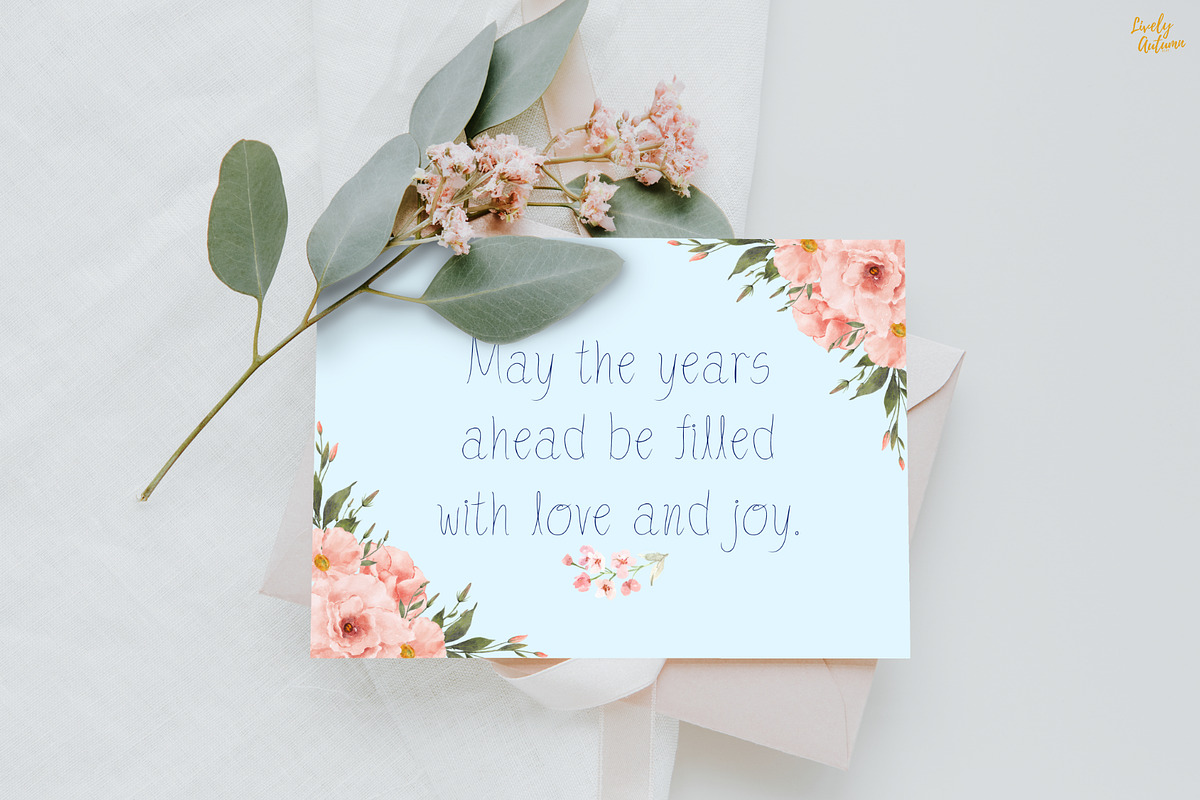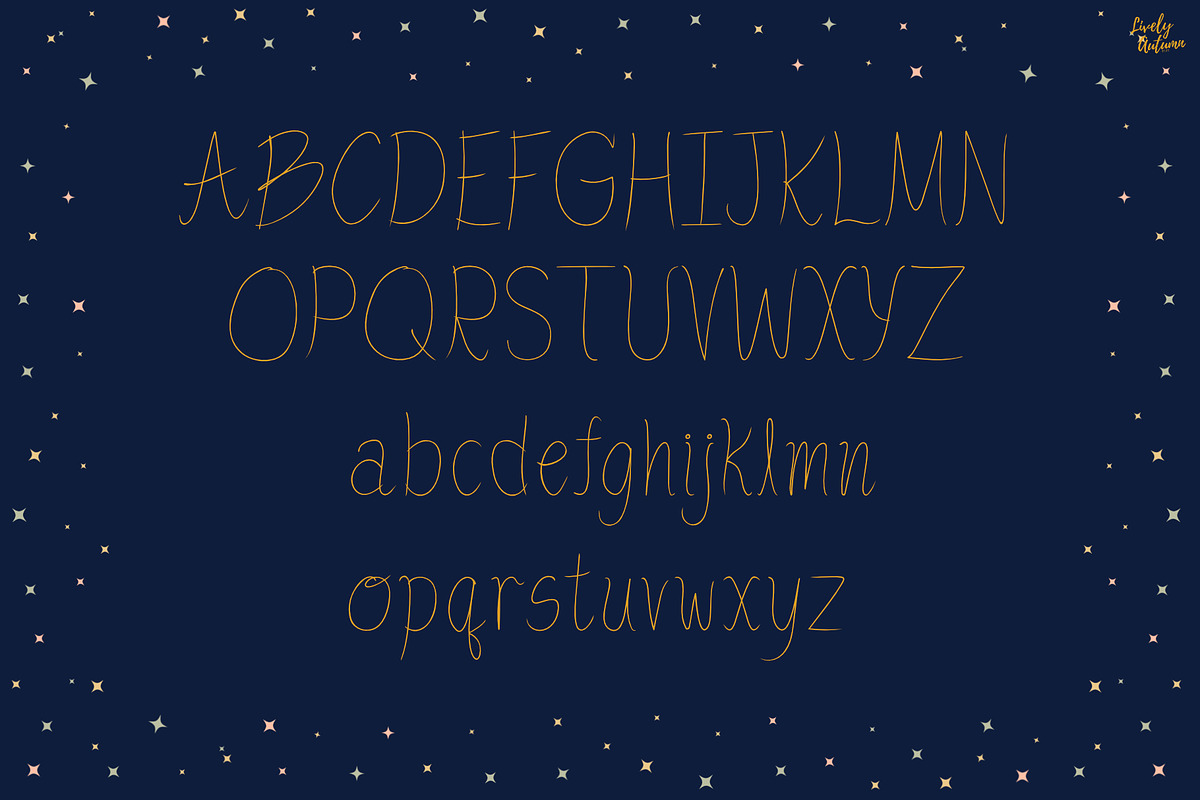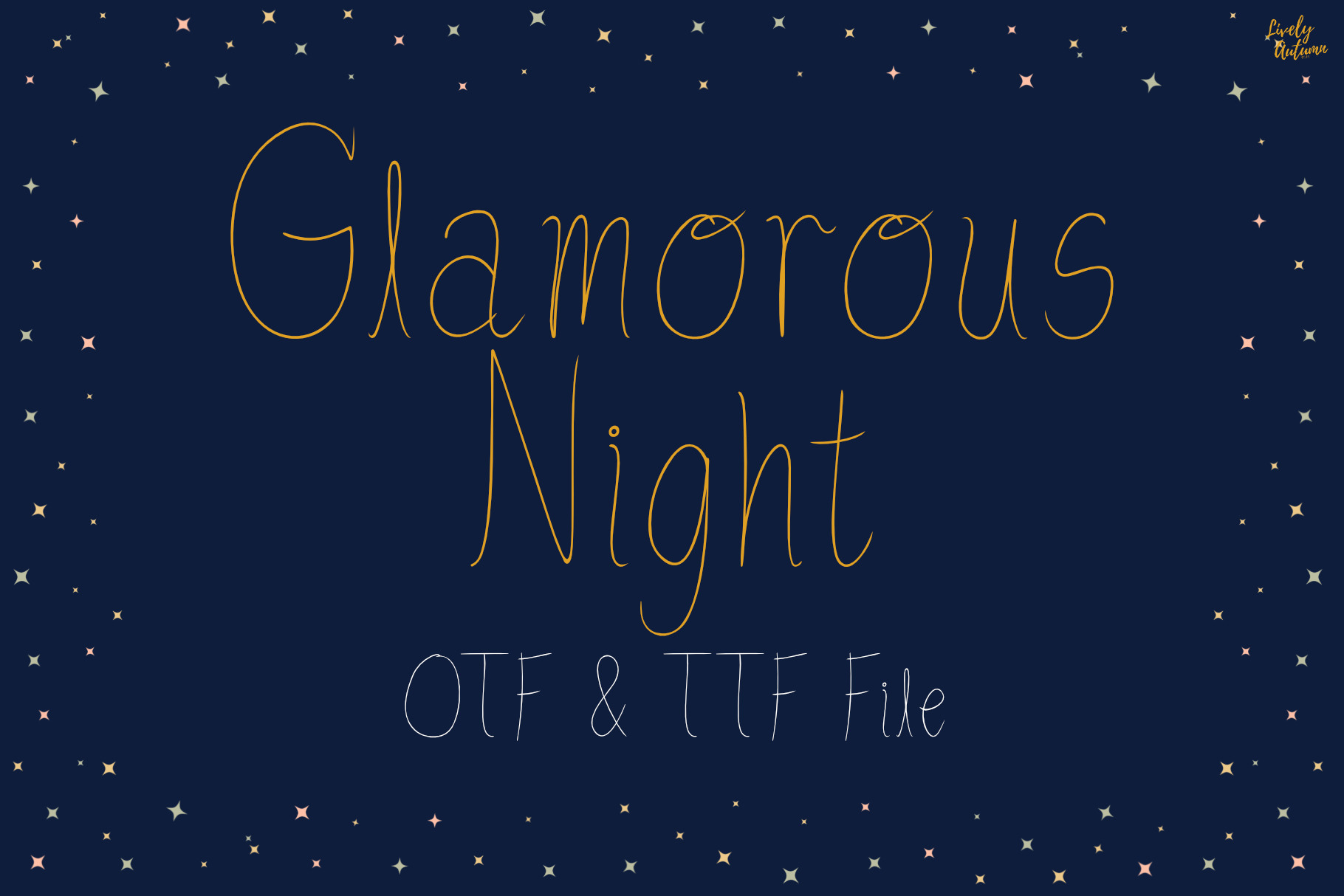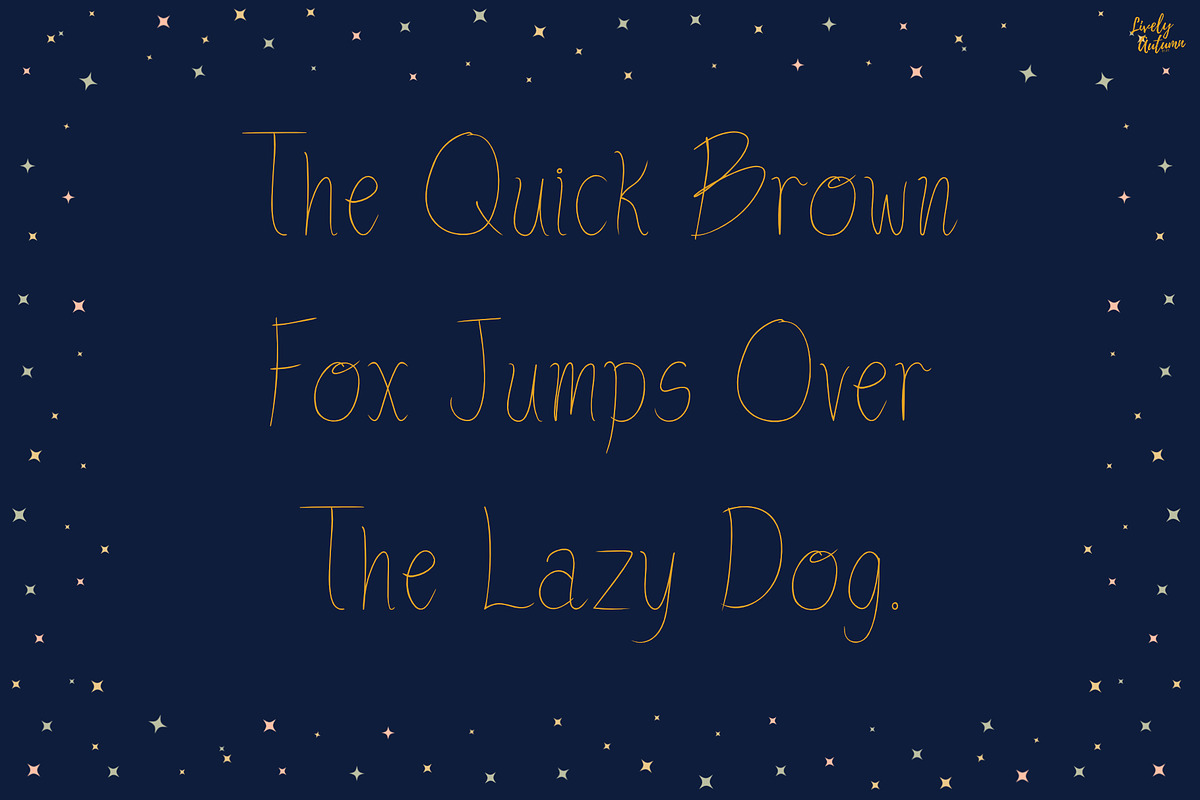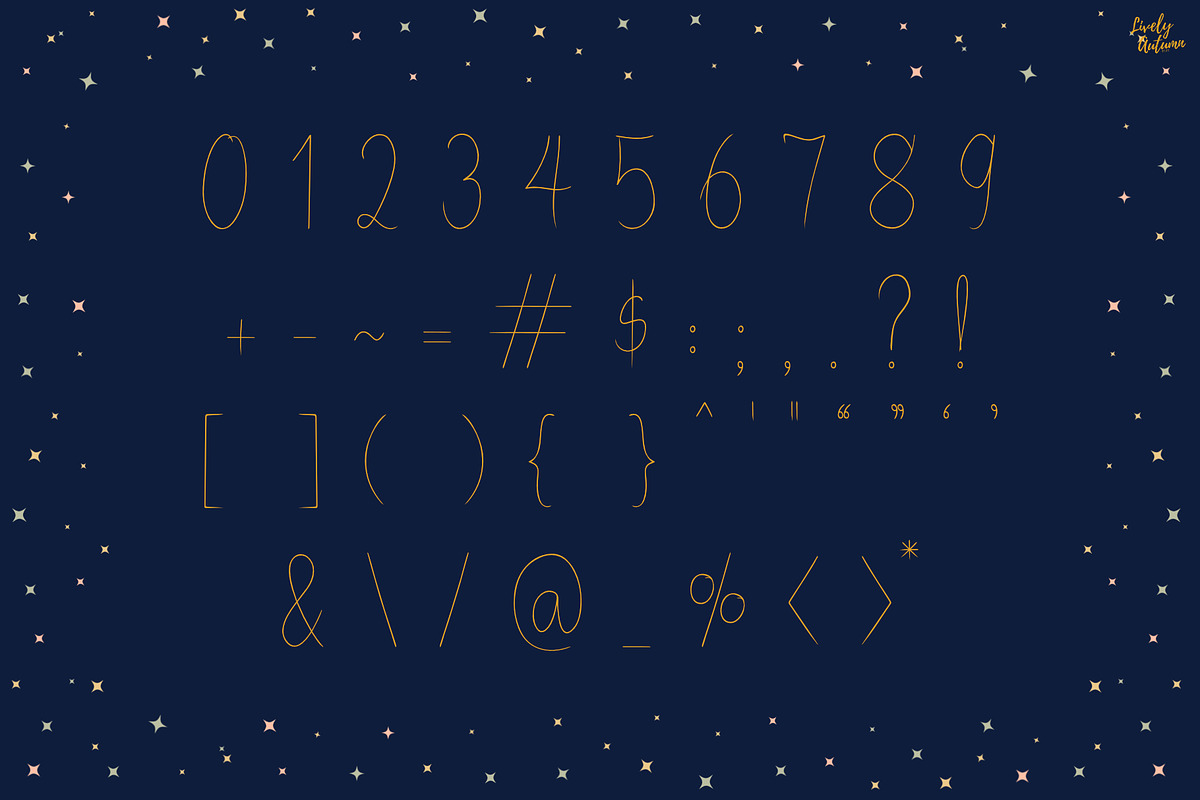
Glamorous Night | Handwriting font
Glamorous Night is an elegant, flowing handwriting font with delicate thin-line strokes, perfect for invitations and upscale events like galas, weddings and various projects. From invitations to posters, social media graphics, journals, greeting cards, and much more.